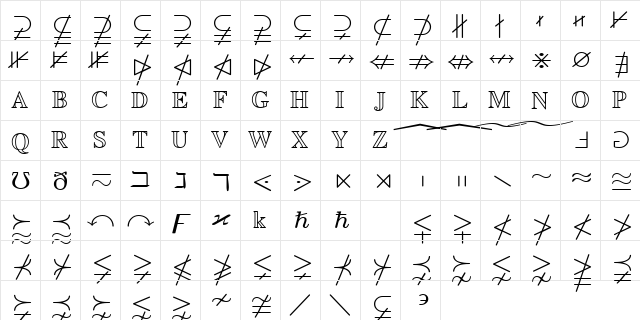
msbm6 Regular
Design Context for msbm6 Typeface
msbm6 offers clean, dependable letterforms without strong stylistic allegiance, making it a practical choice for designers who need flexibility.